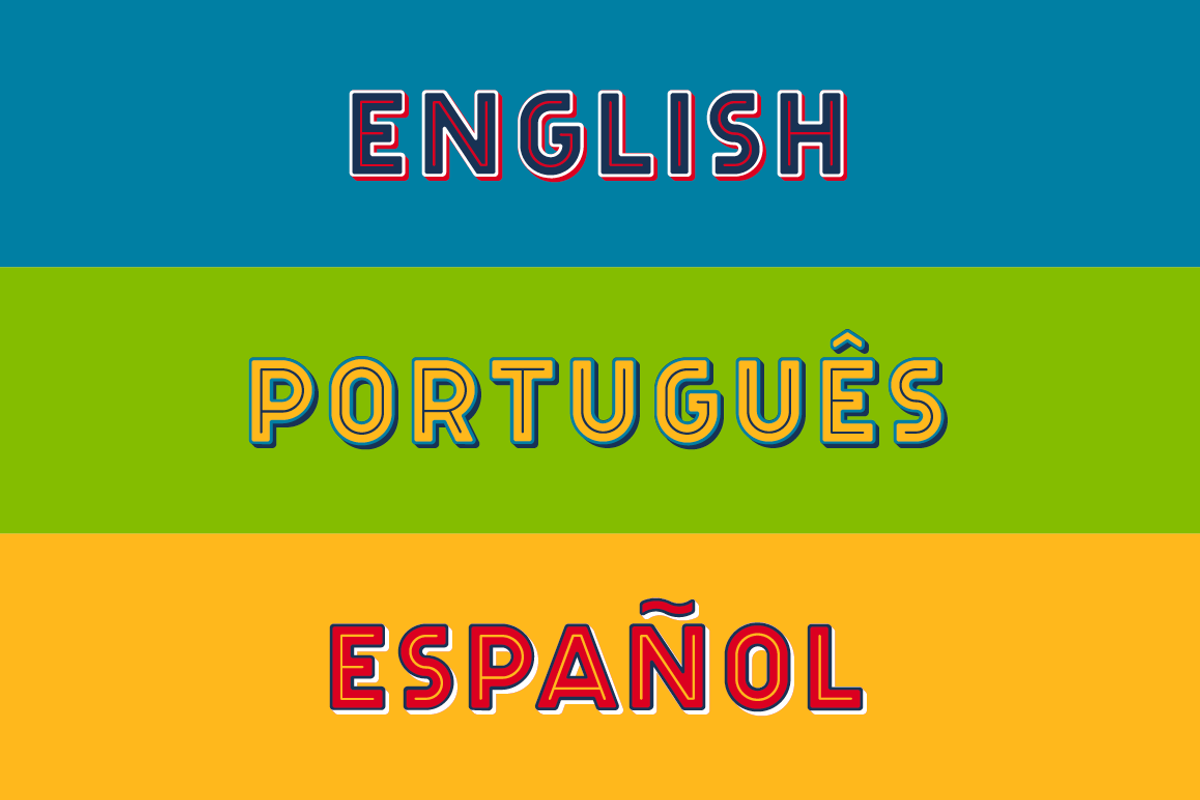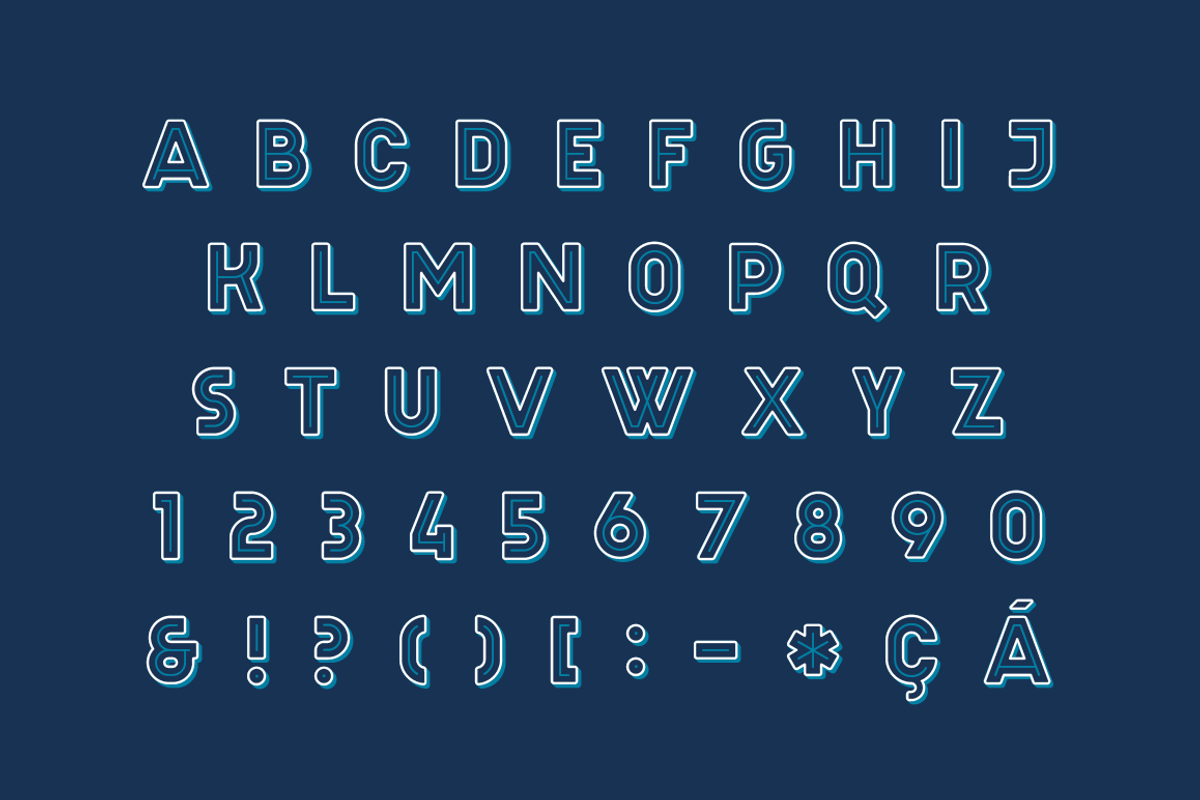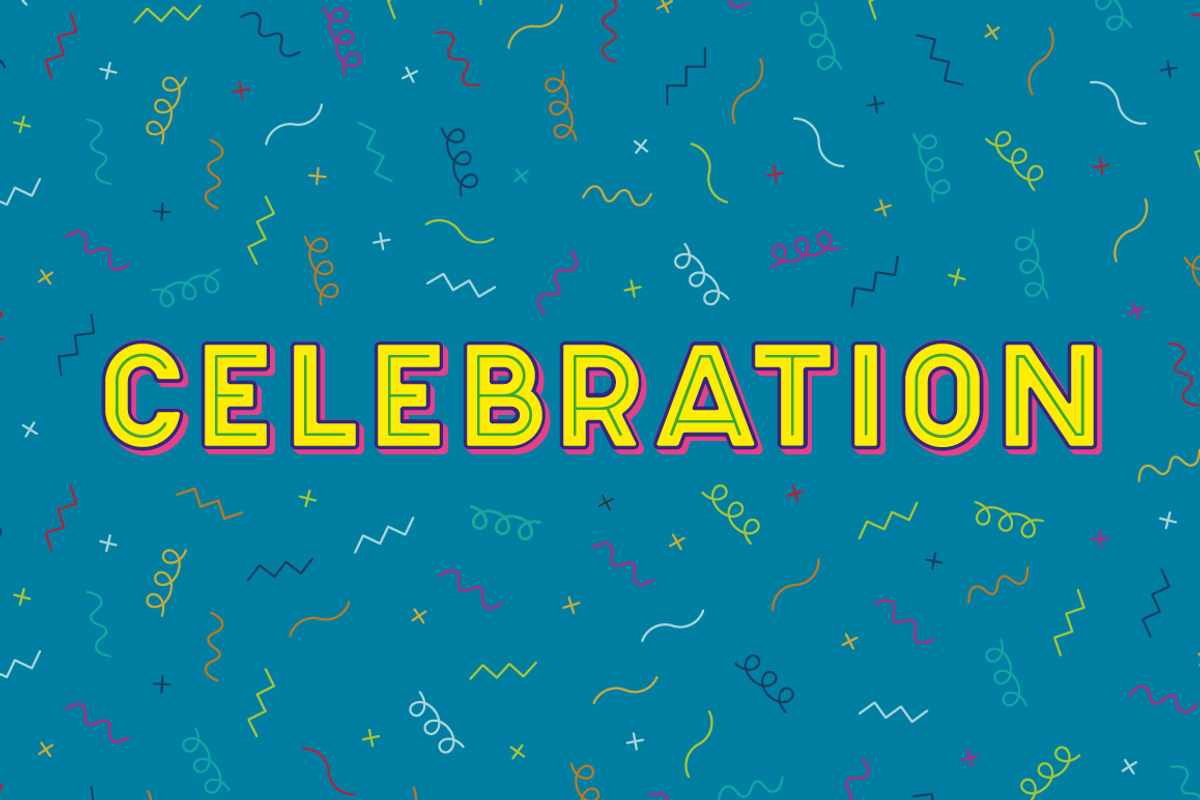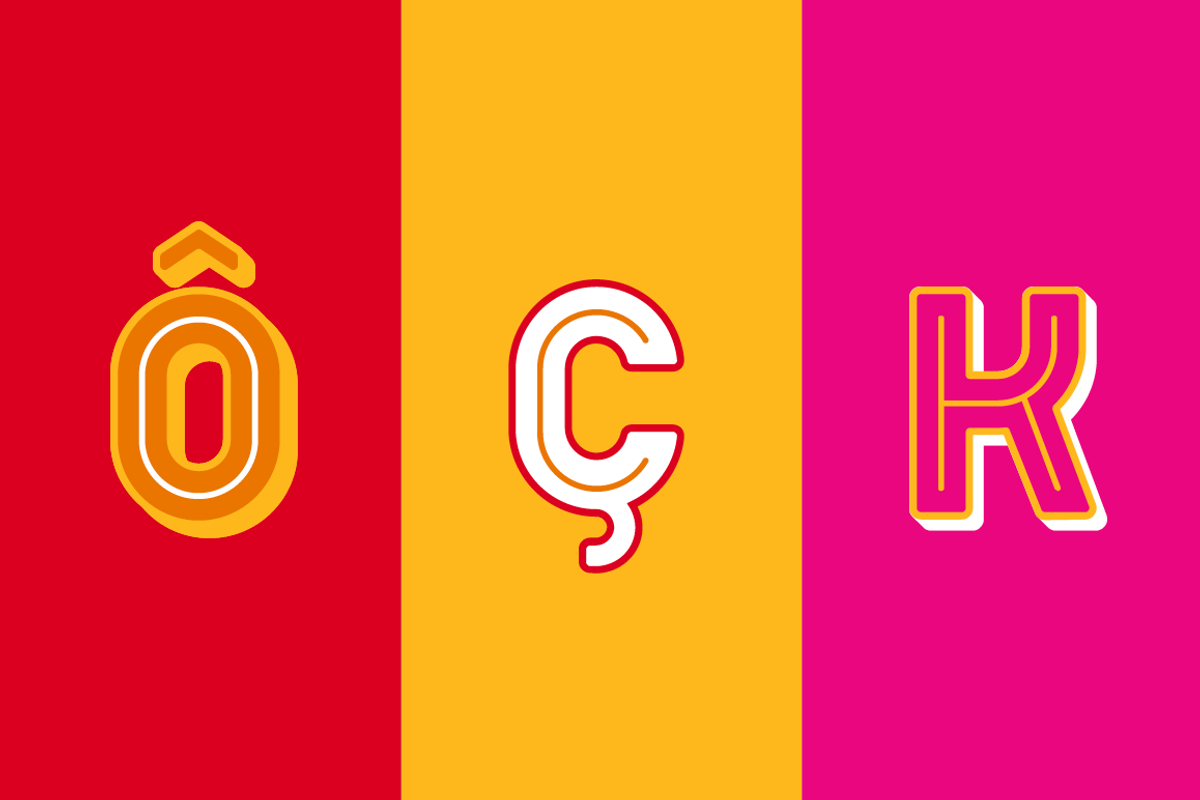
Celebration Typeface
Celebration was inspired by the geometric properties of hand drawn signage, with four weights which can be layered individually to create all manner of combinations. For personal use it can be downloaded for free at
In order to use the typeface, typeset the desired text using the “Shadow” style, then copy and paste the same text in the “Fill”, “Outline”, and then “Inline” in that order, colouring and styling each style as you go.
The typeface has been designed to work in three main languages: English, Spanish, and Portuguese, with accented and specialised glyphs for each of these languages included. Some characters may be missing, try before you buy at